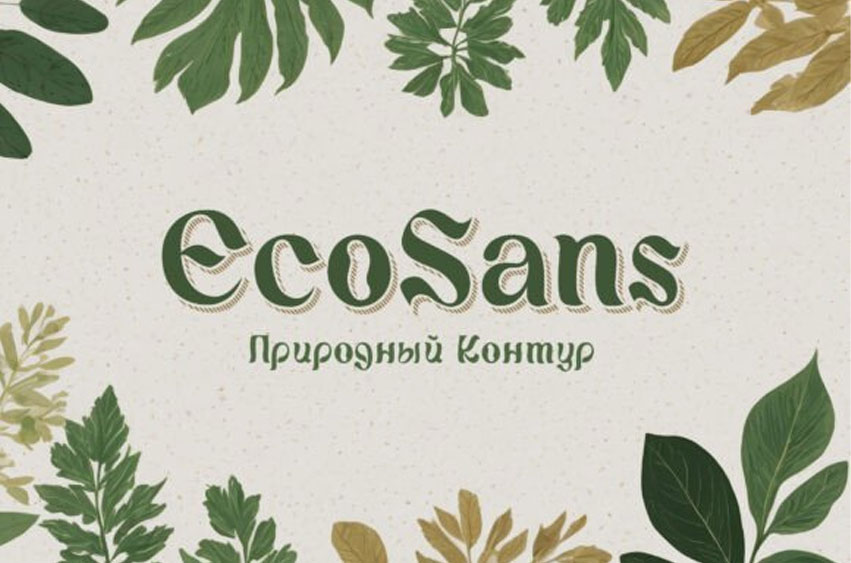
Ecosans Font
Ecosans Font is a beautifully organic font that brings a touch of nature to your designs.
With its elegant curves and leafy accents, this typeface is perfect for eco-friendly branding, packaging, organic products, wellness themes, and earthy aesthetics. Celebrate sustainability with this stylish natural font!